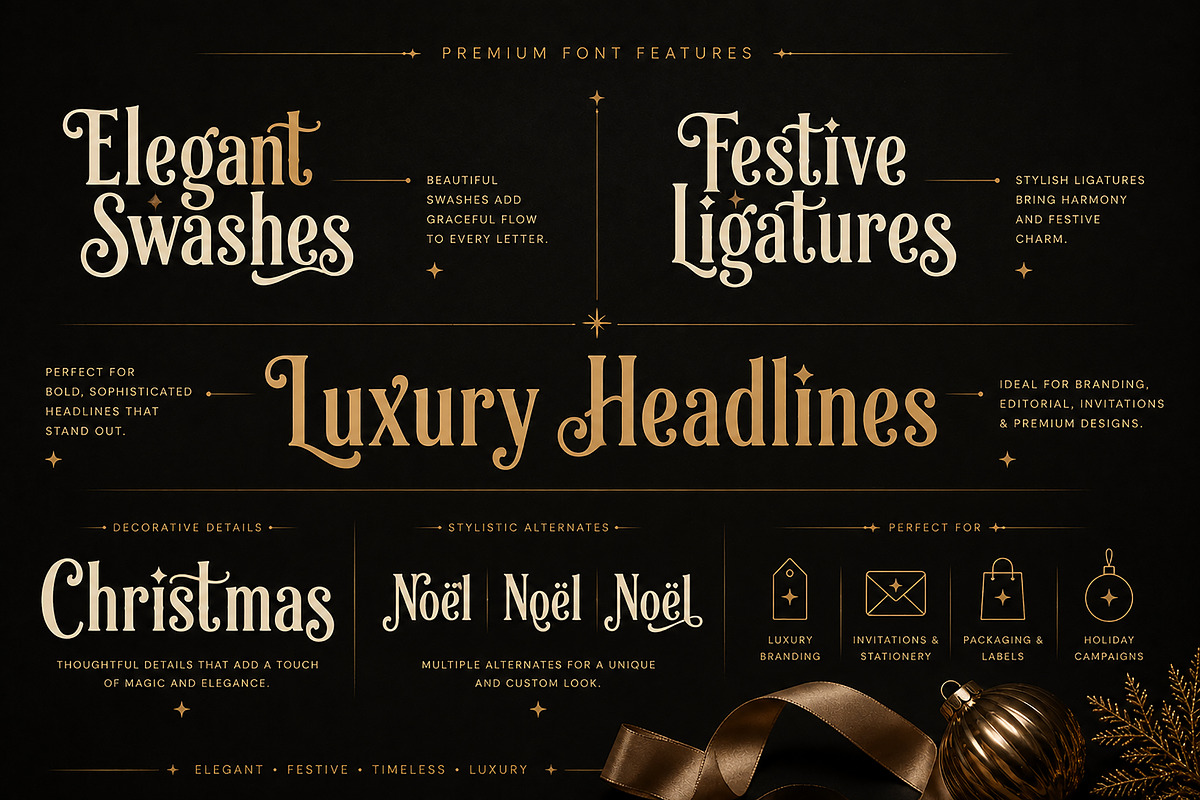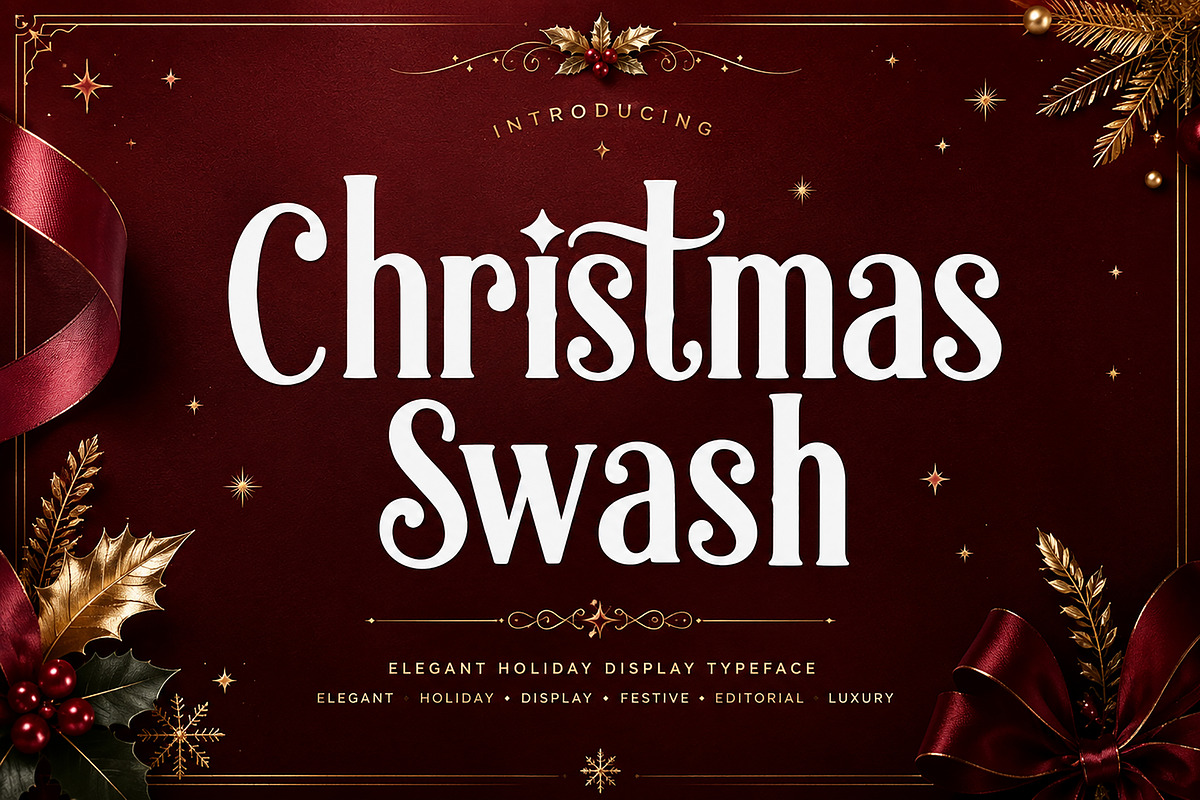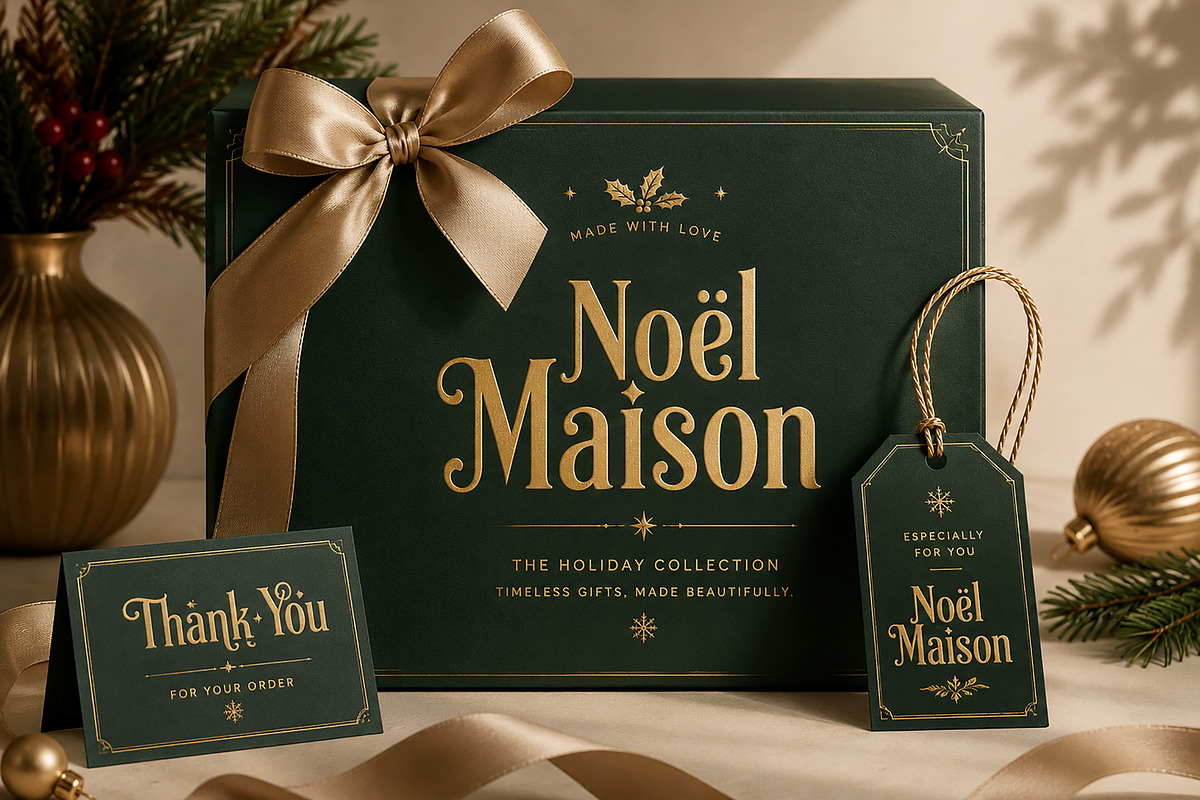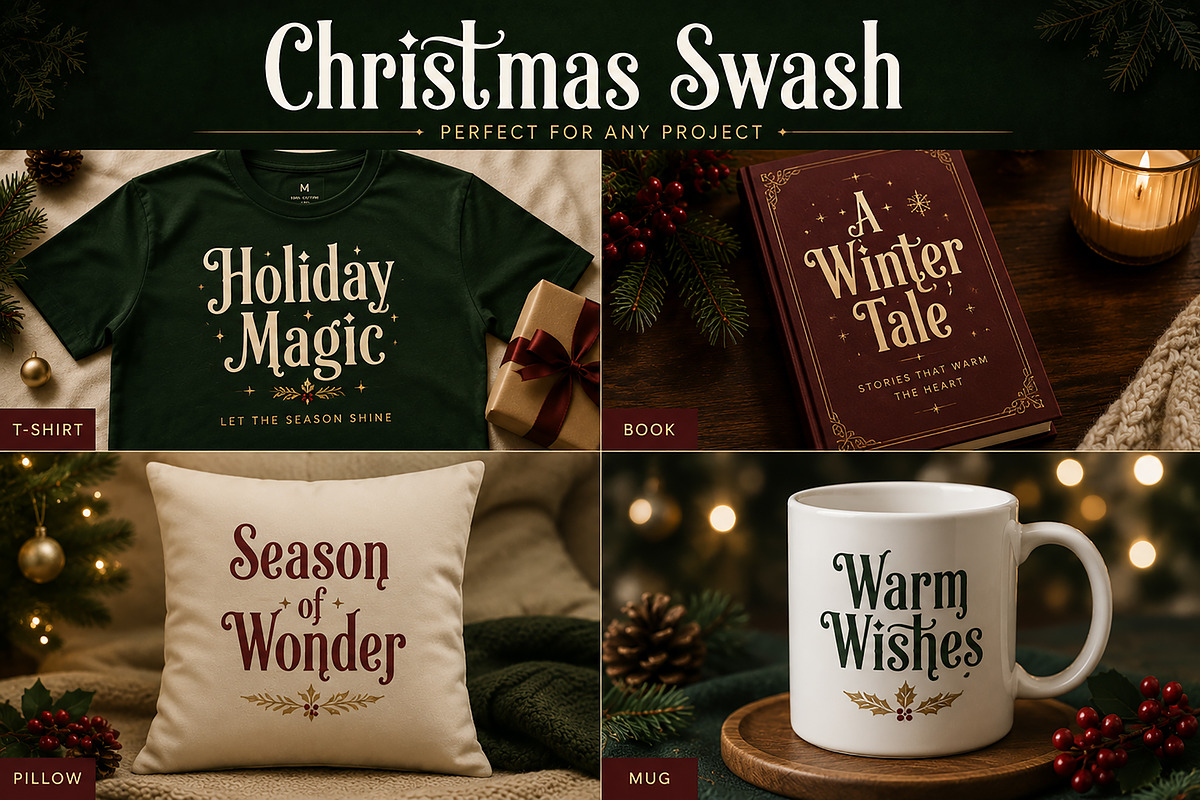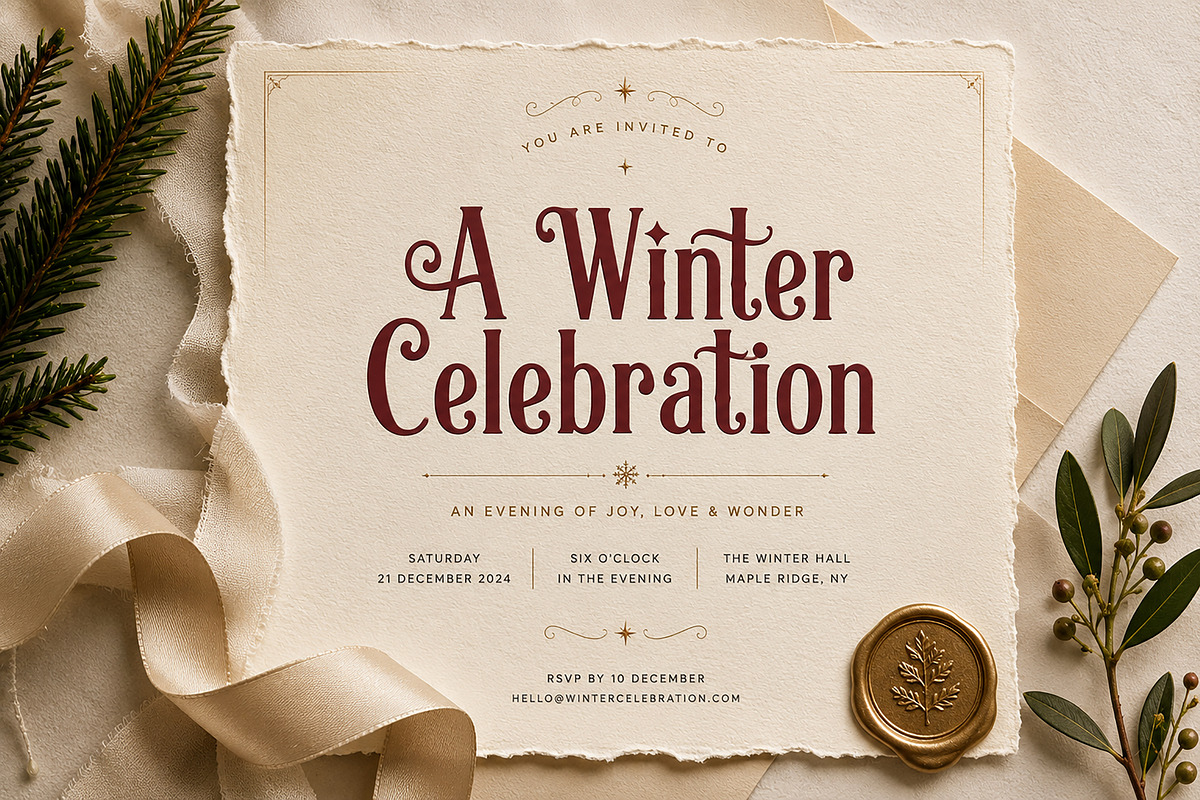
Christmas Swash
Christmas Swash – Elegant Holiday Display Font
Christmas Swash is an elegant and festive display font designed to bring a sophisticated seasonal touch to your creative projects. Featuring graceful letterforms, decorative details, and a distinctive holiday-inspired personality, this typeface is perfect for designs that need to feel warm, stylish, and memorable.
Its refined display style works beautifully across Christmas branding, greeting cards, invitations, gift packaging, product labels, apparel, book covers, mugs, posters, social media graphics, and many other seasonal projects.
Whether you're creating a luxurious holiday collection, festive merchandise, boutique packaging, or an elegant Christmas campaign, Christmas Swash helps your typography become the centerpiece of the design.
Christmas & Holiday Designs
Greeting Cards
Invitations & Stationery
Logos & Branding
Gift Packaging
Product Labels & Tags
T-Shirts & Apparel
Mugs & Merchandise
Book & Magazine Covers
Posters & Flyers
Boutique Branding
Seasonal Advertising
Cricut & Craft Projects
Headlines & Display Typography
Font Style: Decorative Display / Holiday / Christmas
Why You’ll Love Christmas Swash
Christmas Swash combines festive character with an elegant, premium appearance. Its decorative personality makes it especially suitable for large headlines and statement typography while remaining versatile enough for branding, packaging, stationery, merchandise, and digital designs.
Create beautiful seasonal designs and give your Christmas projects a distinctive finishing touch with Christmas Swash.